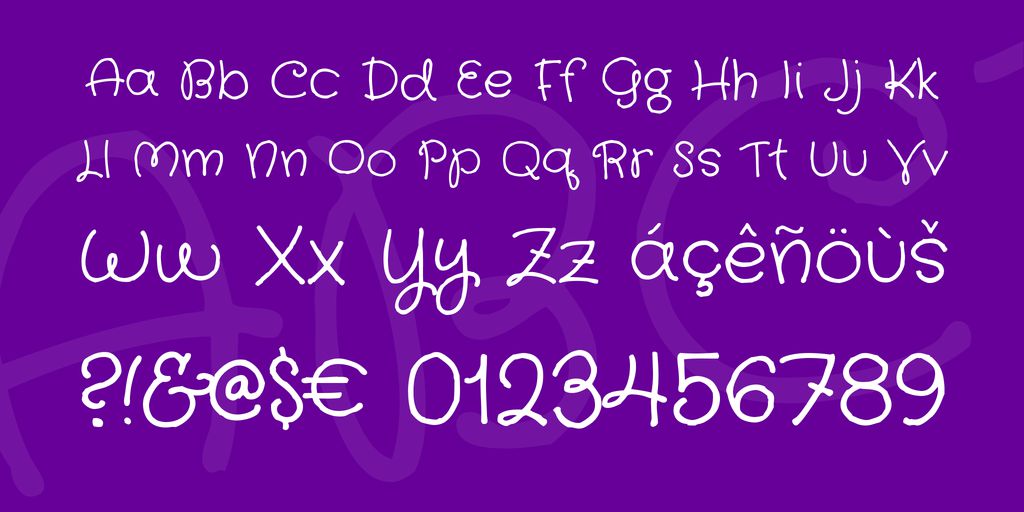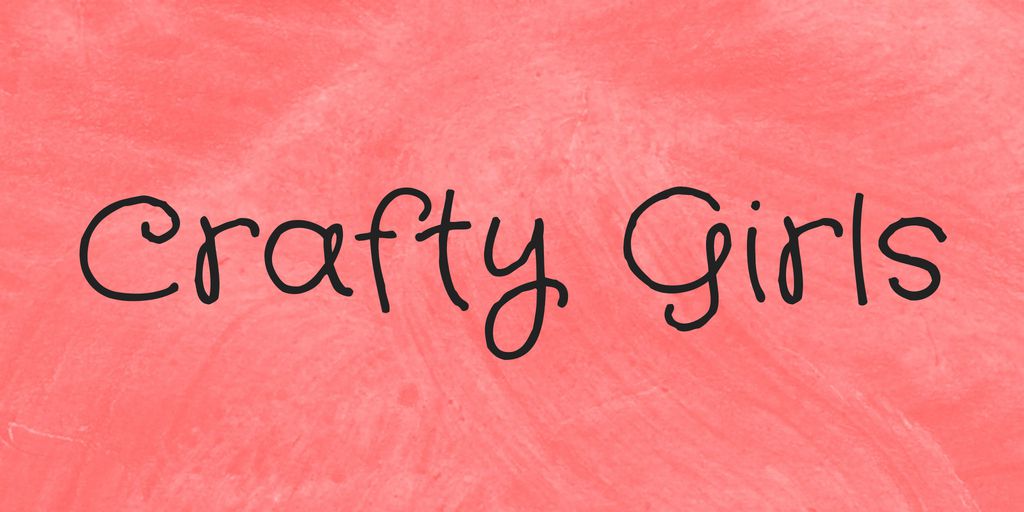
Crafty Girls Font
Crafty Girls Font is highly rated inside google fonts. These typeface shares similarities with the satisfy and the guage font. This typeface will make your content look amazing. The genuinely famous content material author from calligraphy font the all right reserved for this stylish typeface.
And he creates it for financial rolling stone font gift-day writing and springs. He has taken the idea from which changed into as speedy as released. In this way. It has supported approximately 110 styles of global languages.
Crafty Girls Font Free Now that you may capable of moreover be called it the winning-day model of the exo 2 font. Because of the truth now it has contained the entire ancient factors with strength. The whole letters collectively with this precise font function pinnacle-notch based totally absolutely certainly truly surely in reality format. This typeface is also indexed inside the google fonts.